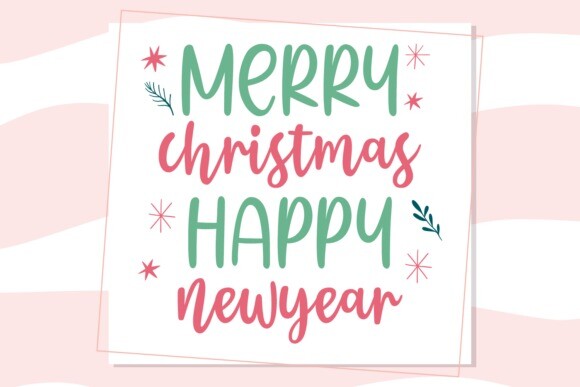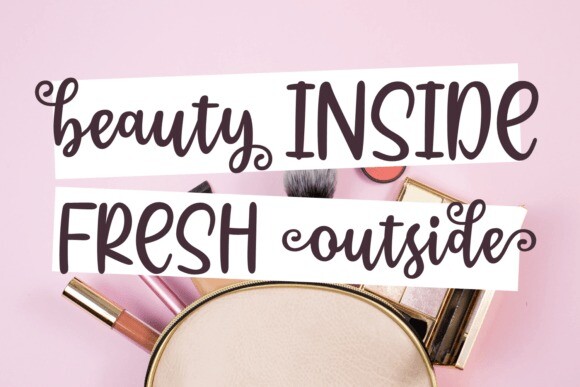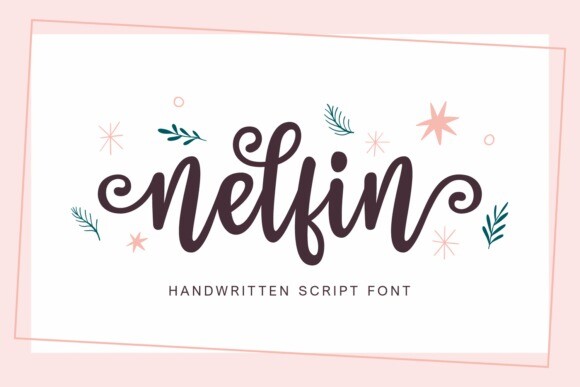
Nelfin Font
Nelfin Font is a beautiful handwritten script font that looks casual and friendly. It features flowing, connected letters that give a personal touch to any text. Perfect for invitations, greeting cards, and anything that needs a warm, inviting feel.